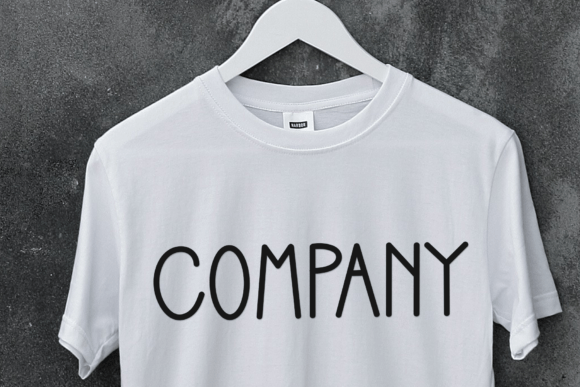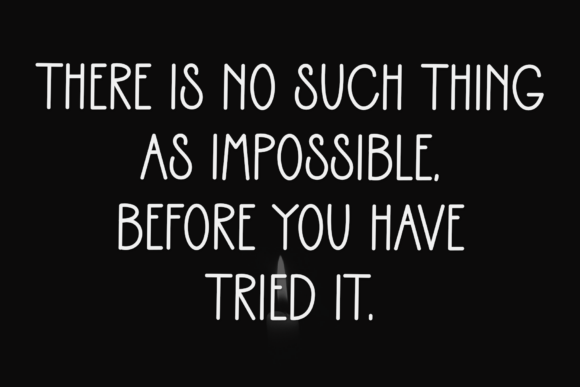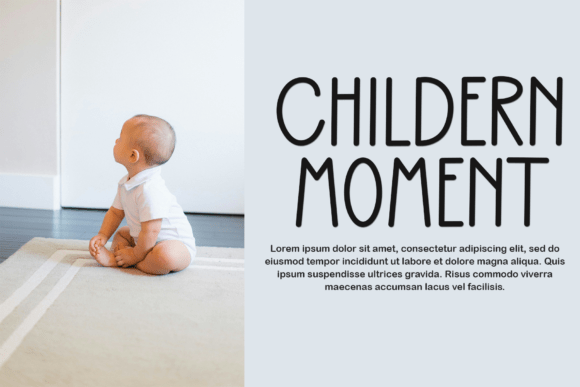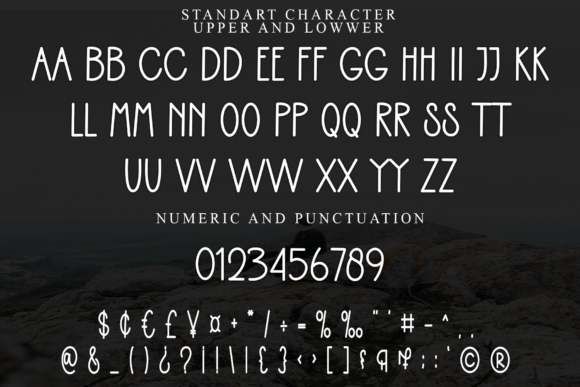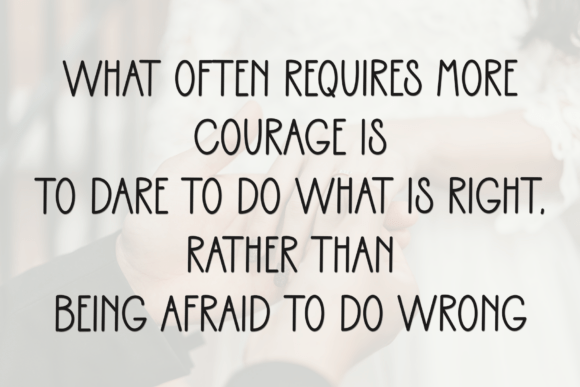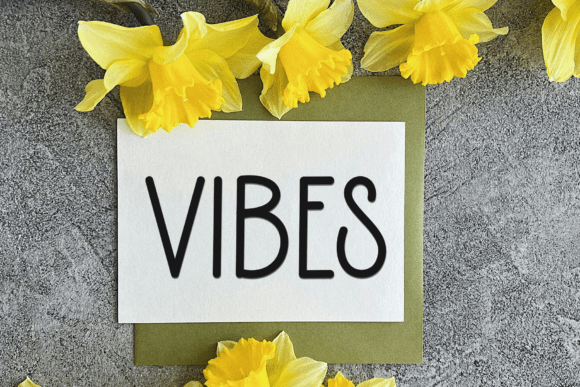
Baby Lovely Font: The Perfect Choice for Creative and Personal Projects
Are you looking for a font that can add a touch of warmth and friendliness to your designs? Look no further than the Baby Lovely font. This casual and creative font is perfect for personal projects, invitations, social media graphics, and more. In this article, we’ll take a closer look at the Baby Lovely font and explore its features, benefits, and uses.
What is Baby Lovely Font?
Baby Lovely font is a hand-drawn, casual font that exudes warmth and friendliness. Its round, playful strokes create a relaxed and approachable feel, making it perfect for designs that require a personal touch. The font’s charming, hand-drawn aesthetic adds a fun and unique touch to any design, making it stand out from more traditional fonts.
Key Features of Baby Lovely Font
• Casual and Creative: Baby Lovely font has a casual and creative vibe that makes it perfect for personal projects, invitations, and social media graphics.
• Warm and Friendly: The font’s round, playful strokes create a warm and friendly feel that’s sure to engage your audience.
• Hand-Drawn Aesthetic: The font’s hand-drawn aesthetic adds a fun and unique touch to any design.
Benefits of Using Baby Lovely Font
So, why should you choose Baby Lovely font for your designs? Here are just a few benefits of using this font:
• Easy to Read: The font’s clear and playful strokes make it easy to read, even at smaller sizes.
• Versatile: Baby Lovely font can be used for a wide range of designs, from personal projects to commercial projects.
• Unique: The font’s hand-drawn aesthetic makes it stand out from more traditional fonts, adding a unique touch to your designs.
Uses of Baby Lovely Font
Baby Lovely font is perfect for a wide range of designs, including:
• Personal Projects: Use Baby Lovely font for personal projects, such as scrapbooking, card making, and journaling.
• Invitations: The font’s casual and creative vibe makes it perfect for invitations, such as birthday parties, baby showers, and weddings.
• Social Media Graphics: Use Baby Lovely font to create engaging social media graphics, such as quotes, posters, and flyers.
• Crafting: The font’s hand-drawn aesthetic makes it perfect for crafting projects, such as knitting, sewing, and paper crafting.
Tips for Using Baby Lovely Font
Here are a few tips for using Baby Lovely font in your designs:
• Experiment with Sizes: Try using Baby Lovely font in different sizes to create visual interest and hierarchy in your designs.
• Pair with Other Fonts: Pair Baby Lovely font with other fonts to create a unique and interesting contrast.
• Use in Combination with Images: Use Baby Lovely font in combination with images to create engaging and visually appealing designs.
In conclusion, Baby Lovely font is a casual and creative font that’s perfect for personal projects, invitations, social media graphics, and more. Its warm and friendly aesthetic, hand-drawn aesthetic, and PUA Encoded glyphs make it a versatile and unique font that’s sure to engage your audience. Whether you’re a designer, crafter, or DIY enthusiast, Baby Lovely font is a great choice for adding a personal touch to your designs.